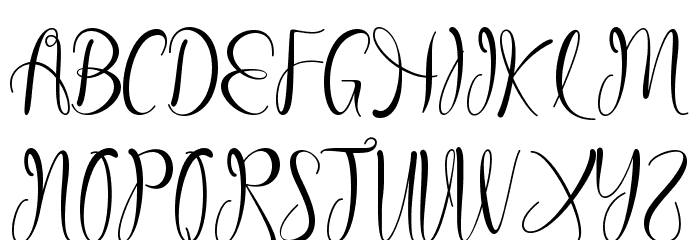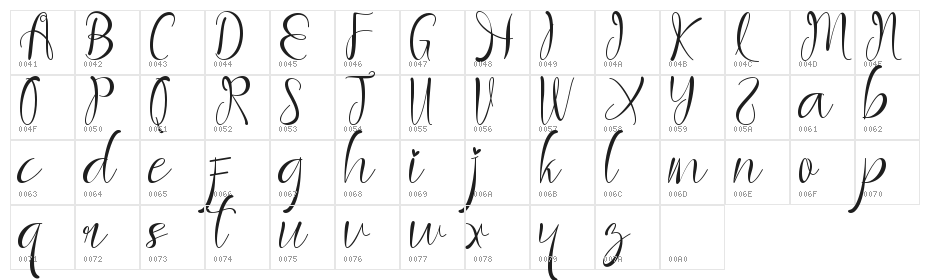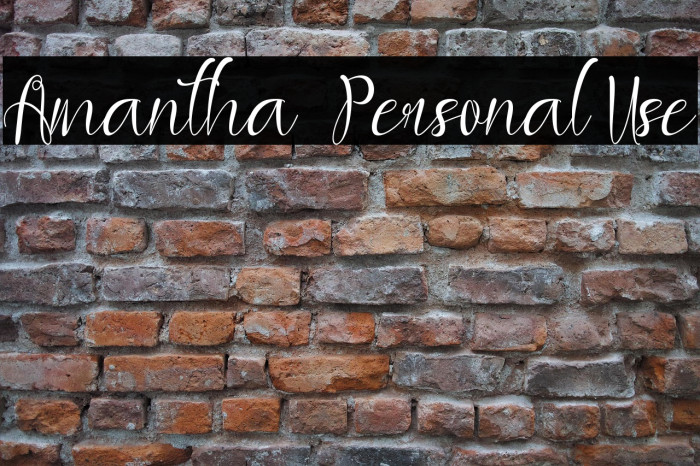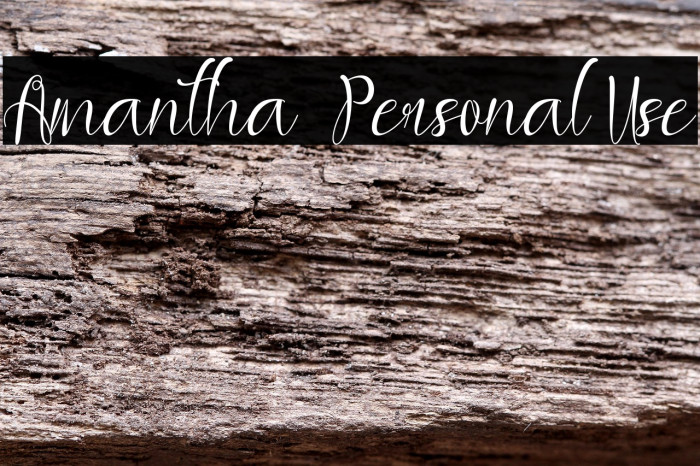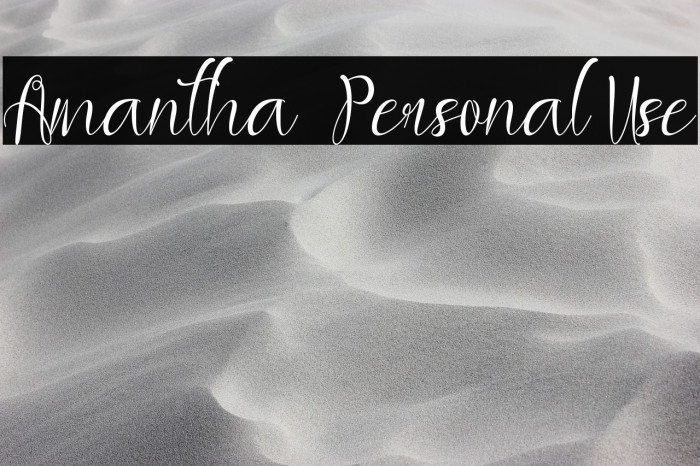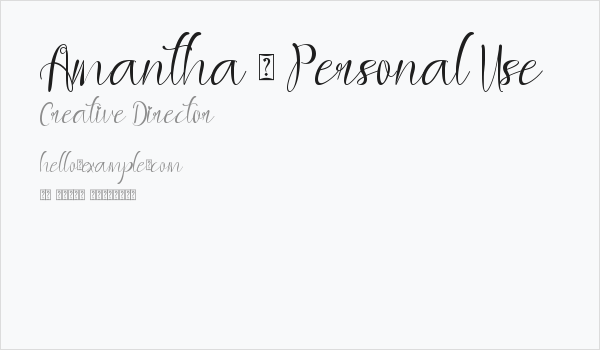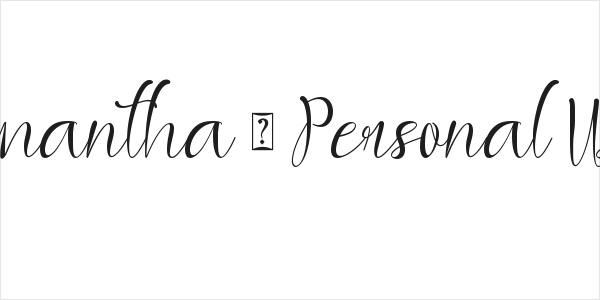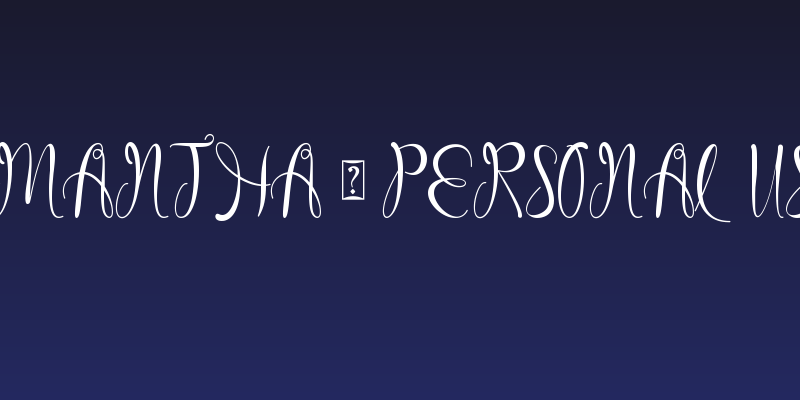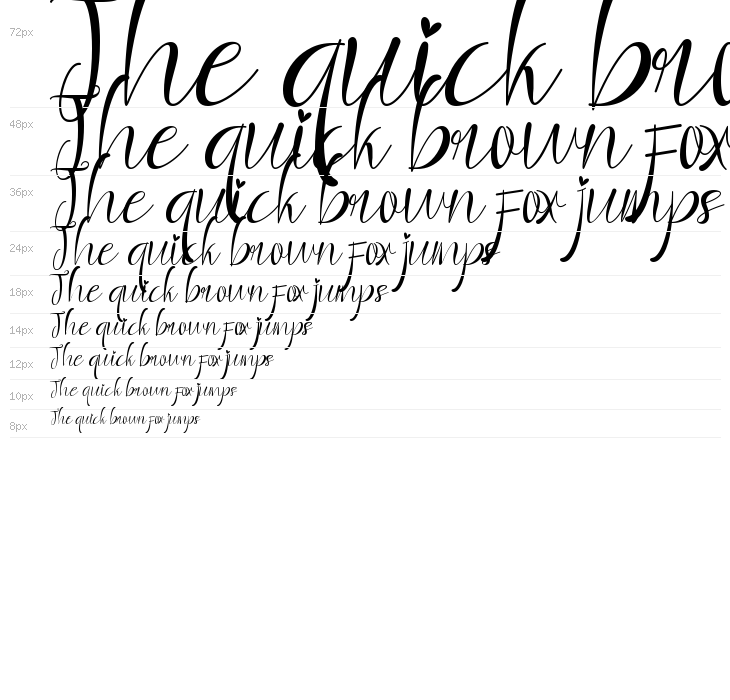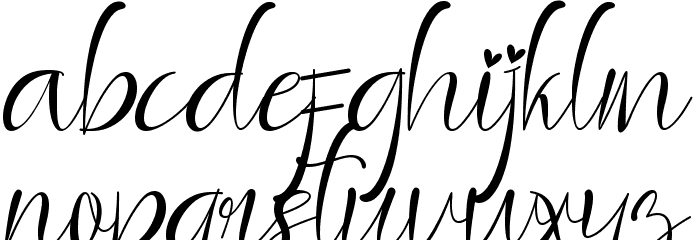
Amantha - Personal Use Font
Amantha - Personal Use Description
This font features an elegant and flowing script style that combines both uppercase and lowercase letters with a distinct flair. The characters are characterized by their elongated, sweeping strokes and delicate curves, giving them a sense of movement and grace. The uppercase letters are particularly ornate, with intricate loops and swirls that add a decorative touch. The lowercase letters maintain a consistent style, with some letters featuring unique embellishments, such as small hearts or additional loops. The numbers and special characters are designed to match the overall aesthetic, ensuring a cohesive look across all text. This font is ideal for projects that require a touch of sophistication and elegance.
| Proposed Projects | Ideal for wedding invitations, greeting cards, branding, and any project requiring a sophisticated, elegant touch. |